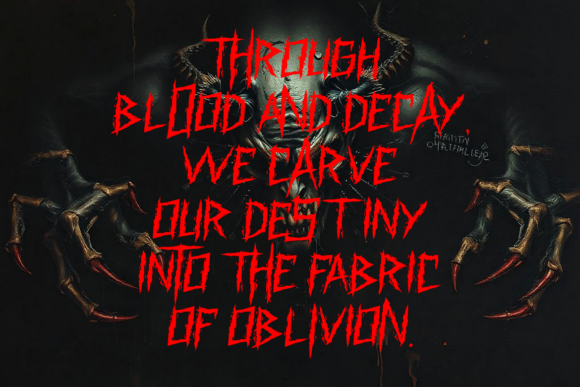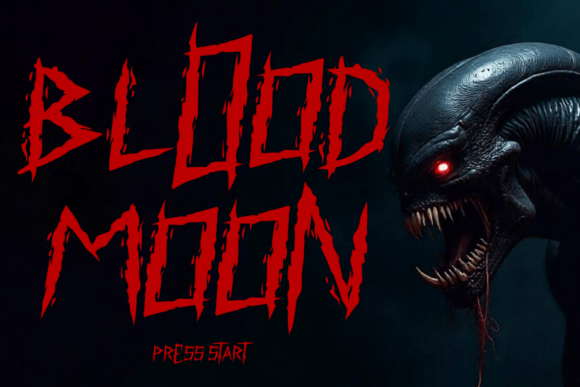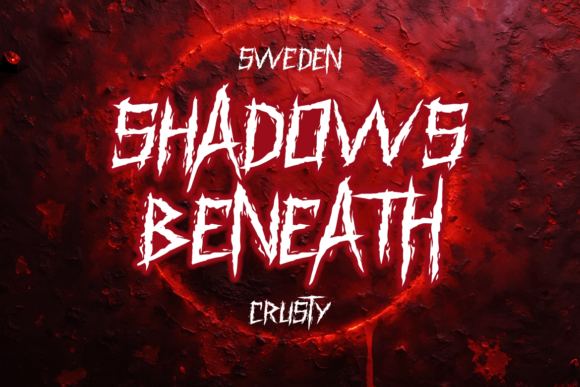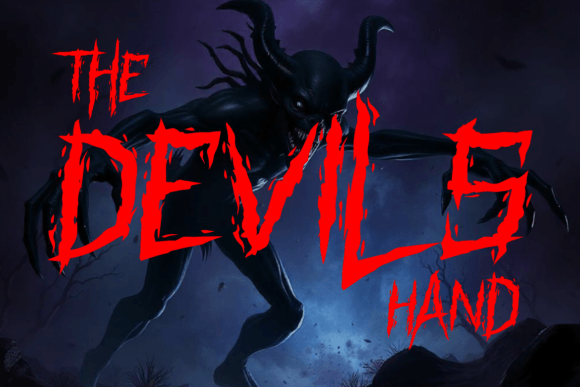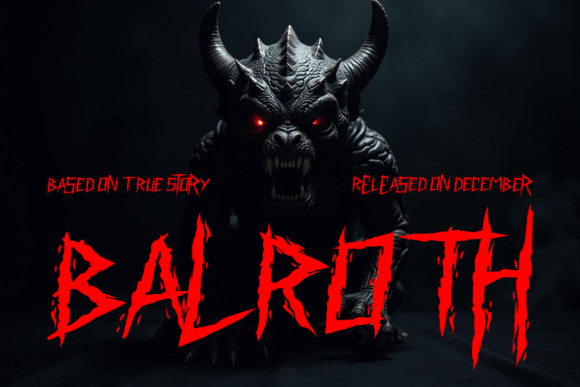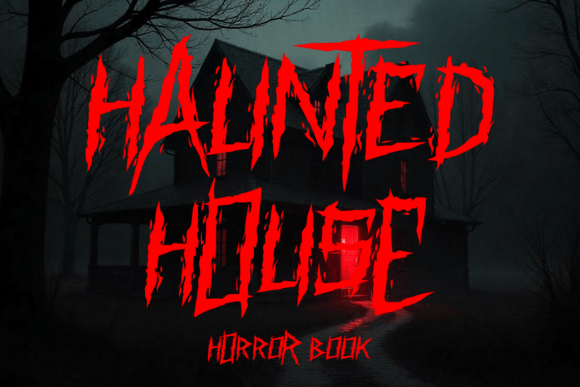
Introduction to Smoky Ghost Font
As designers, we’ve all been there – staring at a blank canvas, searching for the perfect font to bring our creative project to life. Sometimes, it’s that one special font that makes all the difference. For me, that font is the Smoky Ghost Font. Its hauntingly intense atmosphere instantly transports me to a world of darkness and fear, making it the perfect addition to any horror-themed design.
The Smoky Ghost Font is a masterclass in design, with its jagged, dripping strokes and irregular, smoky texture creating a sense of unease and tension. The red font color against a deep, ominous black background is a match made in heaven, making it a high-quality design resource for any creative project.
Whether you’re designing a Halloween invitation, horror movie poster, or haunted attraction signage, the Smoky Ghost Font is a must-have. With its versatility and bold, aggressive design, it’s the perfect tool for designers looking to add a touch of darkness and suspense to their work. And the best part? It’s available for free download, making it a valuable resource for designers of all levels.
Key Features of Smoky Ghost Font
- High-quality design: Smoky Ghost Font offers a unique and stylish aesthetic perfect for creative projects.
- Transparent background: The font features a transparent background, allowing for easy layering and customization.
- Unique characteristics: The Smoky Ghost Font features a smoky, ghostly effect, making it ideal for creative projects that require a touch of mystery and elegance.
- Size: The font includes multiple weights and styles, ranging from light to bold, allowing for a wide range of design possibilities.
Honest Review: Smoky Ghost Font
I recently stumbled upon the Smoky Ghost Font and I must say, it’s a hidden gem. As a designer, I’m always on the lookout for high quality design resources to elevate my creative projects. And this font definitely fits the bill.
- ✨ High quality design that’s perfect for creative projects.
- ✨ Transparent background, allowing for easy customization and integration with other design elements.
- ⚠️ Limited font styles available, which might be a drawback for designers looking for a more extensive font family.
- ⚠️ Not ideal for large-scale text, as it may lose clarity and readability.
Overall, the Smoky Ghost Font is a great addition to any design resource collection. While it may have its limitations, it’s a high-quality font that’s perfect for creative projects that require a touch of elegance and sophistication.
Tips for Getting the Most Out of the Smoky Ghost Font
Experiment with different font sizes and colors to create a visually appealing effect. Use the transparent background to place the font on top of images or colors. Combine the Smoky Ghost Font with other design elements to add depth and interest to your design.
The Smoky Ghost Font is suitable for a variety of creative projects, including posters, flyers, business cards, and social media graphics. It’s also a great choice for presentations, documents, and websites that require a unique and eye-catching font.
Does the Smoky Ghost Font have a transparent background?
Yes, the Smoky Ghost Font has a transparent background, making it perfect for use on any background, including images or videos. This feature allows you to easily composite the font with other design elements, giving you more creative control over your project.